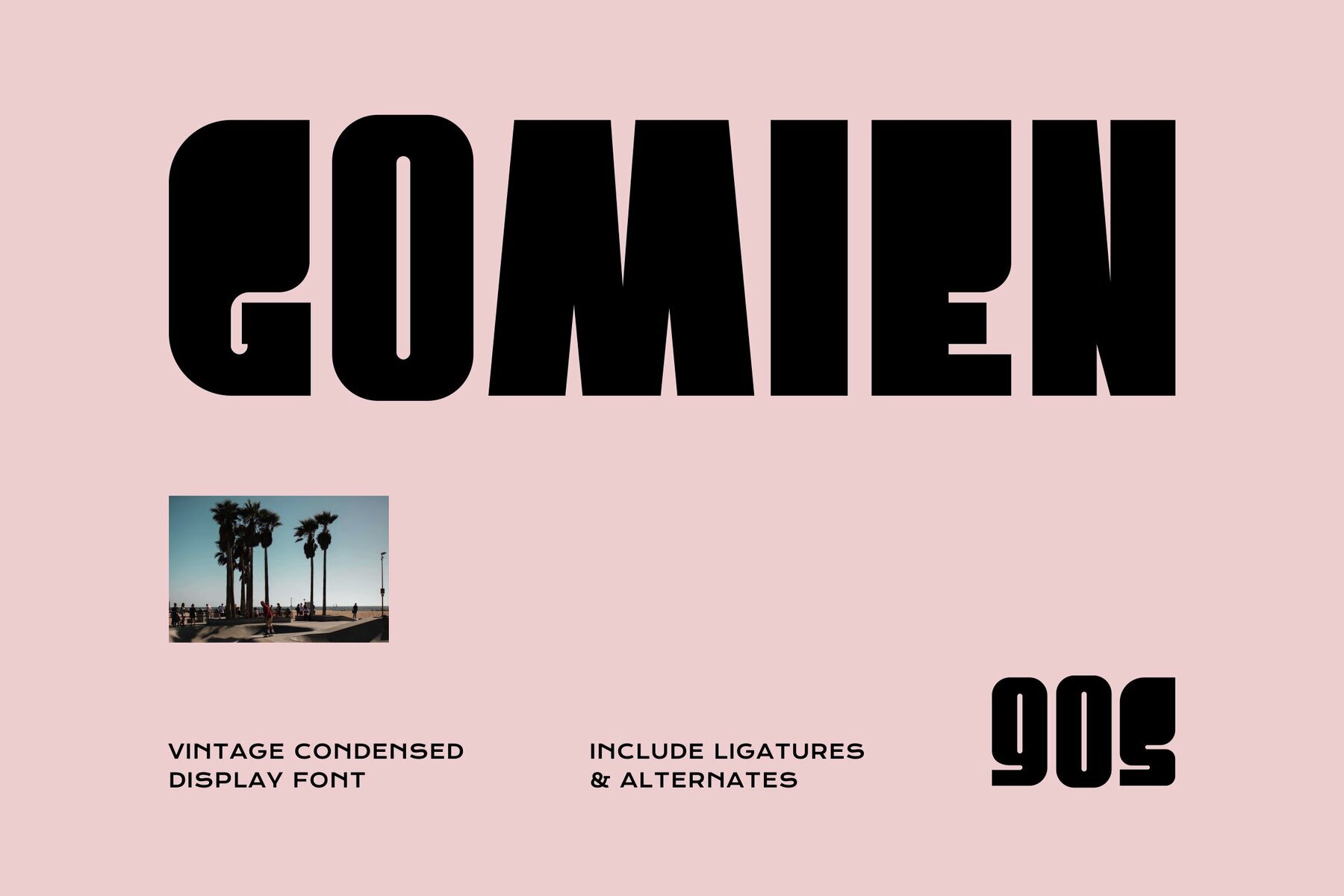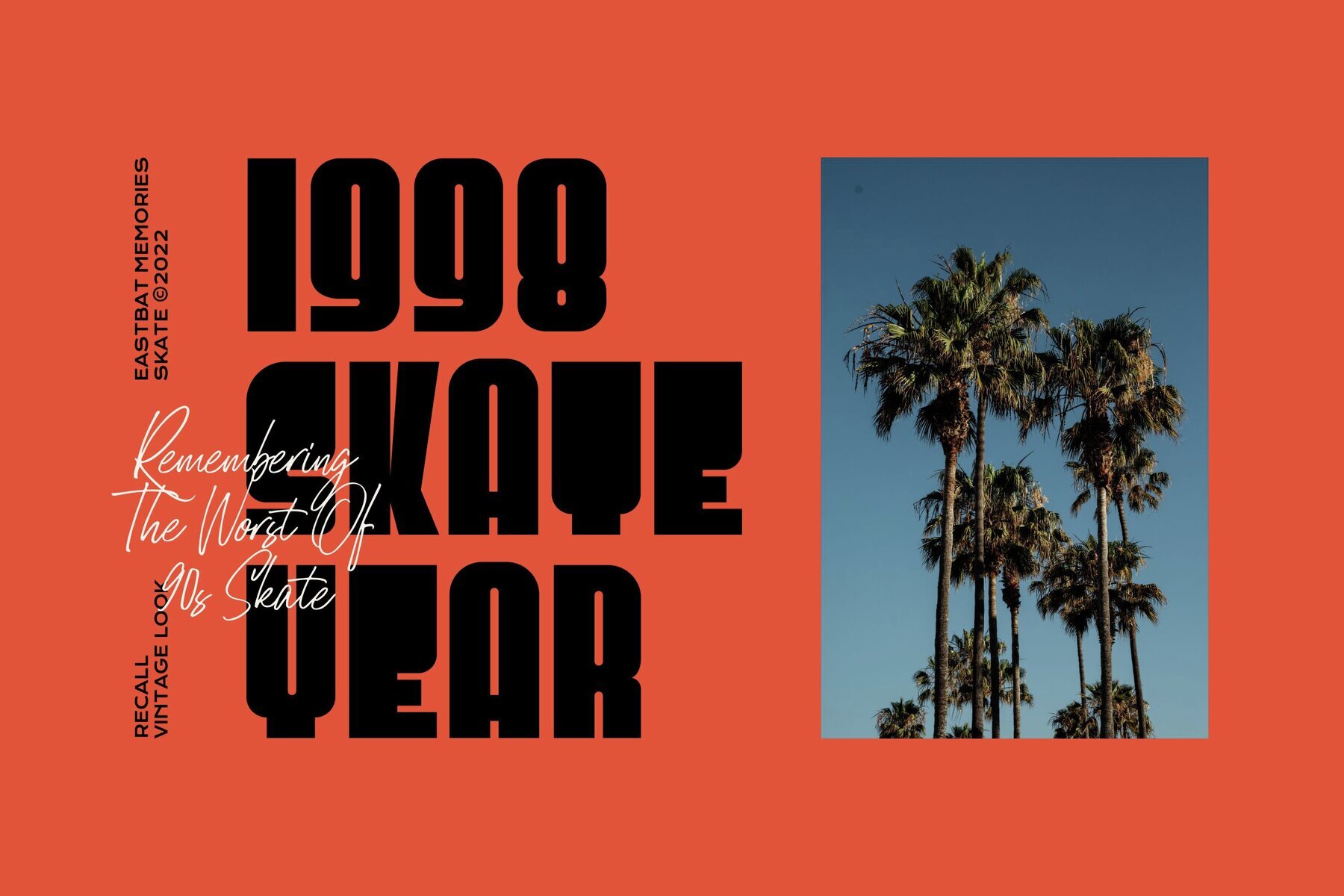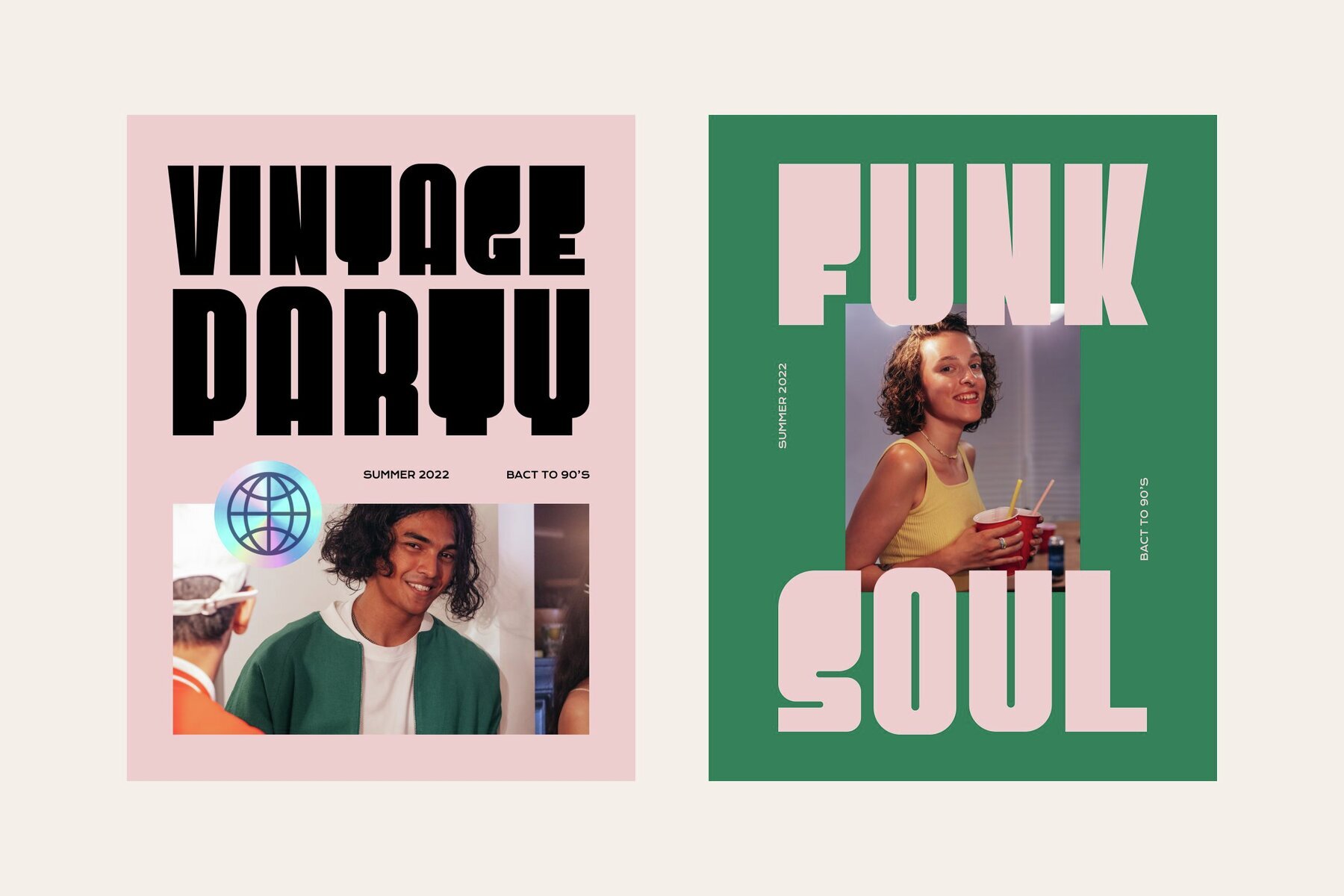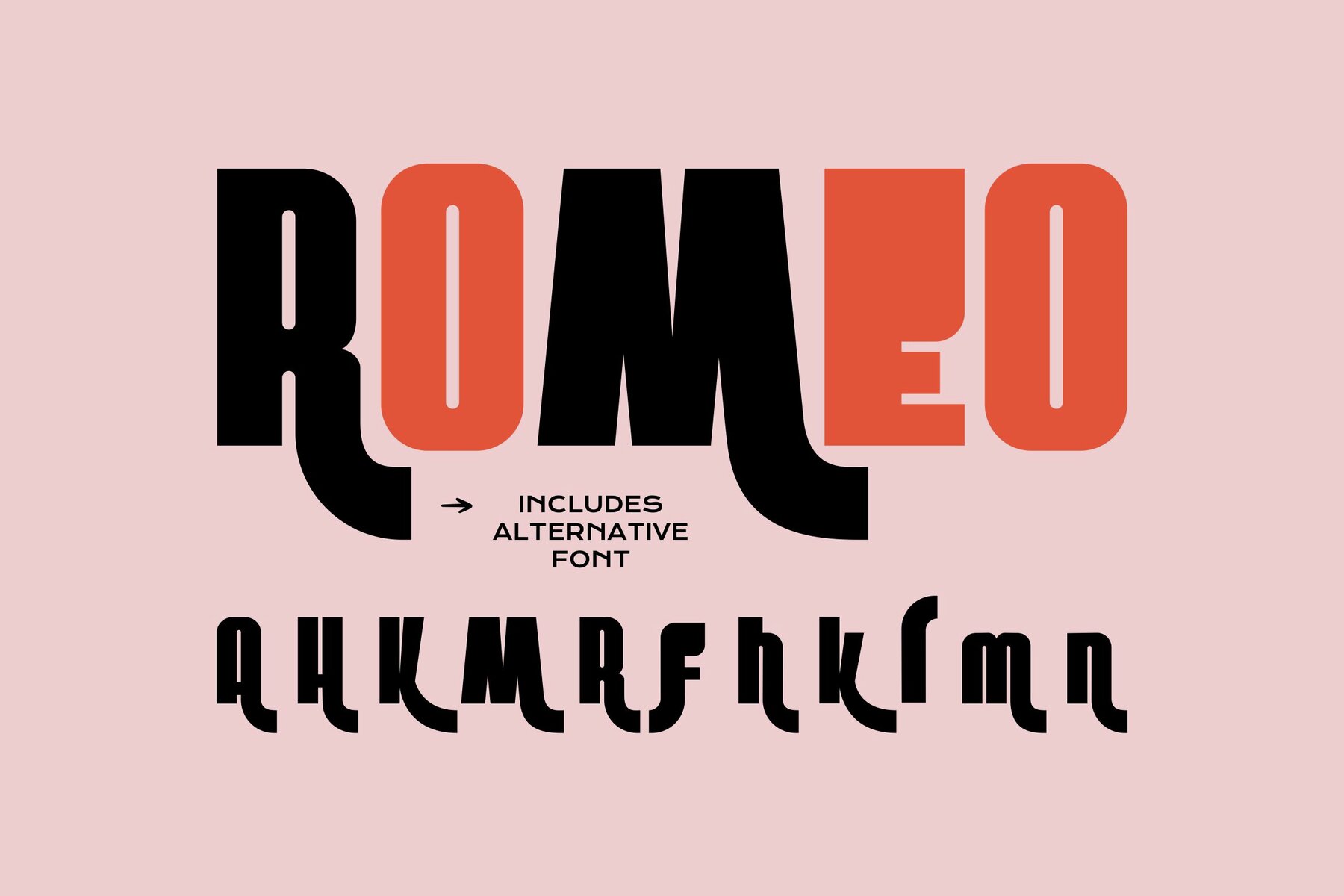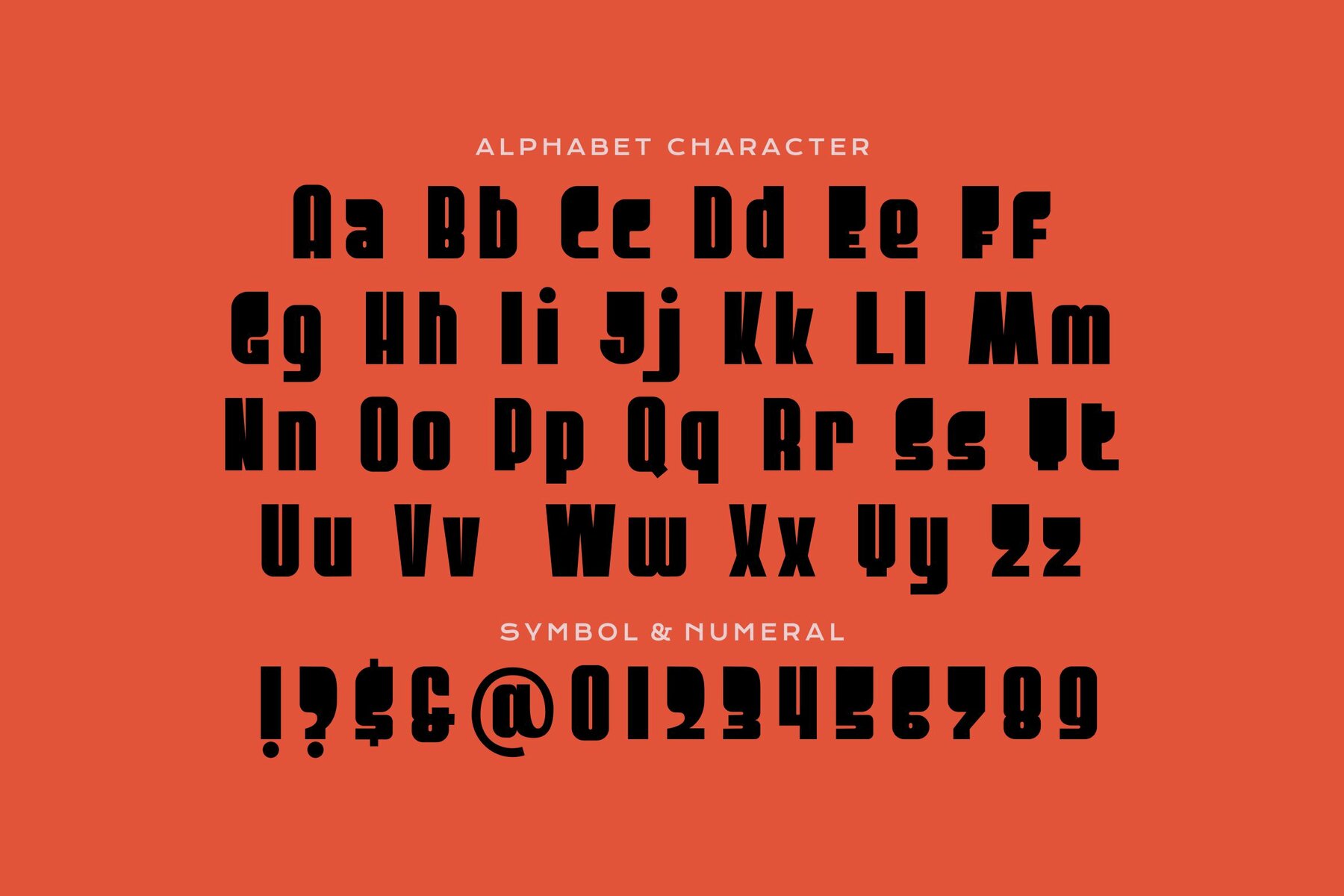
Gomien Font
Gomien Regular
Gomien channels the spirit of 1990s design with its vintage condensed form and bold geometry. Thick, confident strokes and distinctively shaped letterforms create a prominent visual impact, making it an outstanding choice for designers seeking a font that balances nostalgia with modernity. This typeface delivers a lasting impression in projects where character and visual clarity are paramount. Suited for branding, headlines, and posters, Gomien excels in music, fashion, and entertainment contexts. Its compact structure draws the eye without overwhelming, ensuring content stays legible and stylish. For creative directors and graphic designers working on album covers, event flyers, and packaging, Gomien provides visual cohesion while calling back to retro influences.Gomien: Vintage Condensed Typeface with a 90s Influence